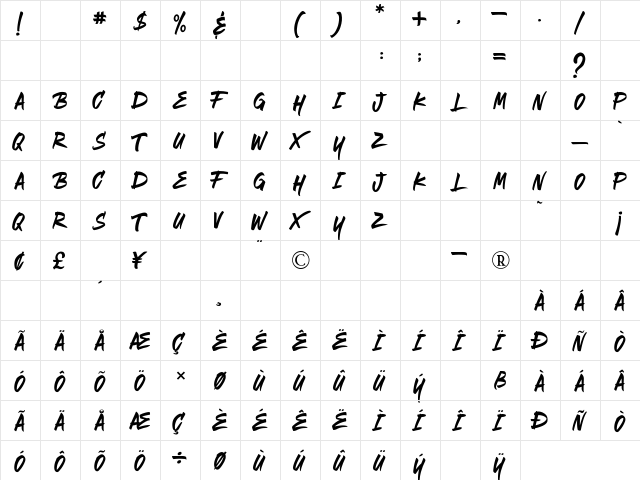
Mallorca Regular
Design Context for Mallorca Typeface
Mallorca is a composed and adaptable typeface that performs quietly and consistently across a wide range of design contexts.